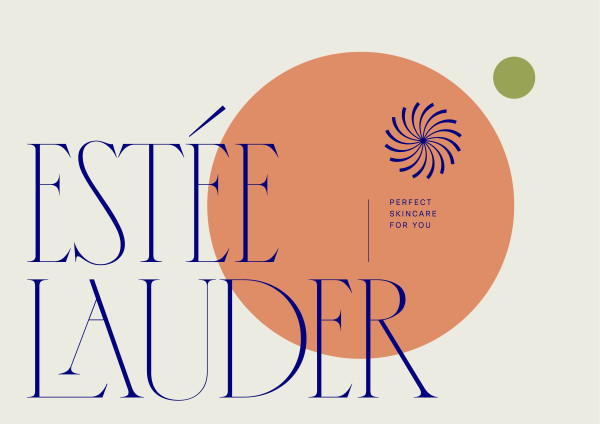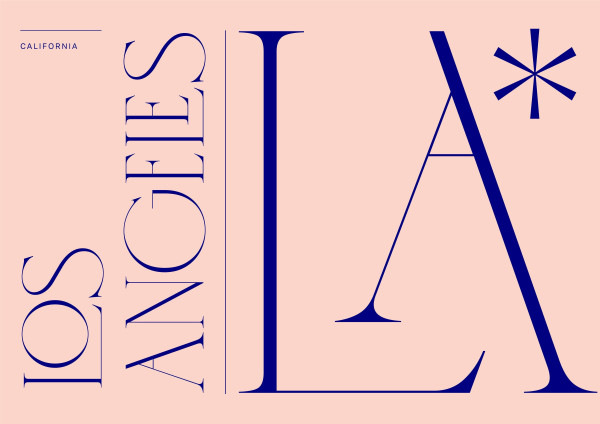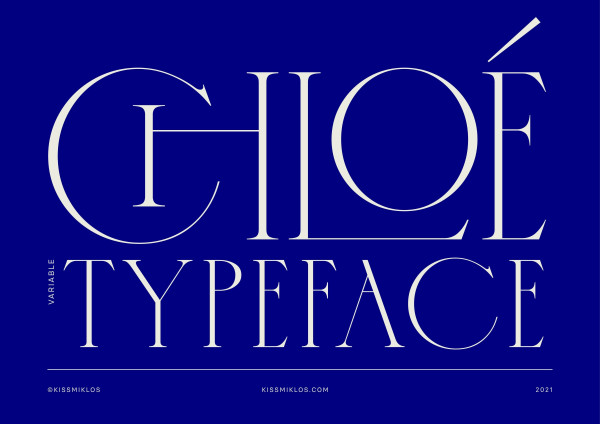
Chloe Typeface
Chloe Typeface, This font is also the result of my play with letters. I made a Las Vegas custom type when I was on an American trip. I back to this type again and again for a long time and I liked the letters so much so I developed them into a full font. I called it Chloé after my cat. She is elegant, playful but sometimes behaves unpredictably. Like a real princess. I offer this typeface for headlines, titles, logos, custom types and layout designs. You can also find many nice, playful and useful ligatures.
Chloe Typeface, Perfectly fit for branding, logo, wedding things, greeting cards, fashion, lookbook, marketing promotion, anytime you want to look fancy elegant but still casual.